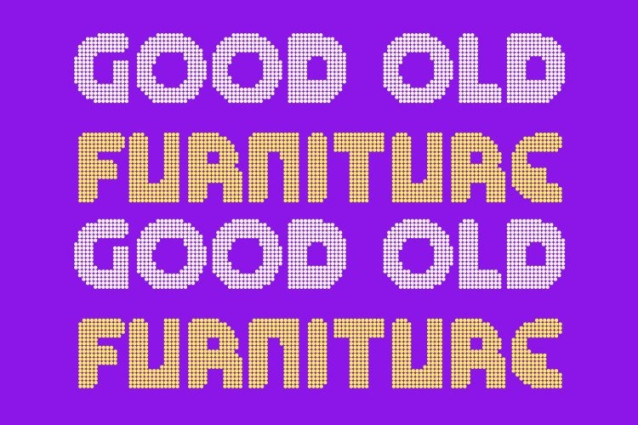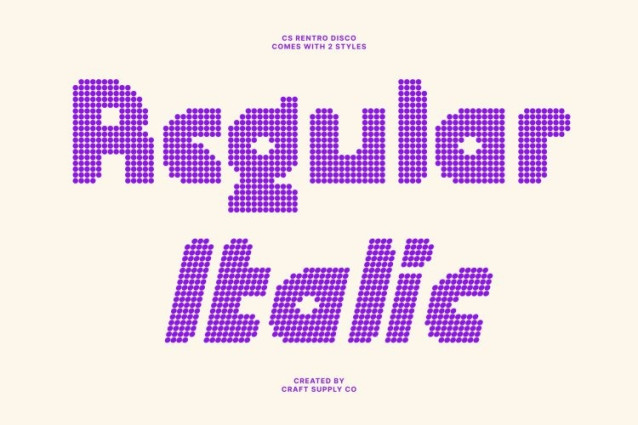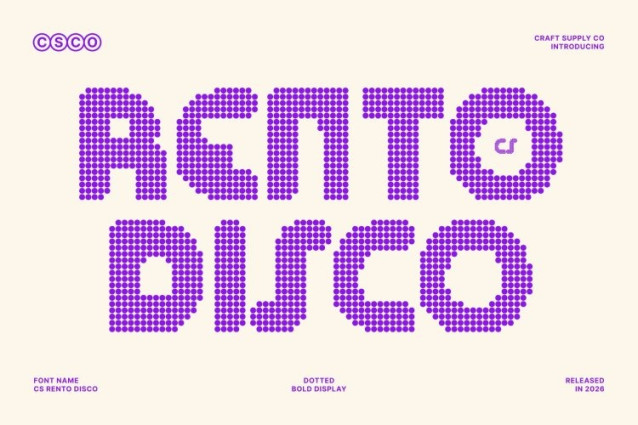
CS Rento Disco Font
CS Rento Disco Font – This is a bold display font that combines strong geometric construction with a lively disco-style dotted texture. Its confident shapes create immediate visual impact, while the dotted surface introduces a subtle sparkle that brings rhythm and vibrancy to the typography.
Strong Geometry with Soft Character
Built from solid geometric forms and softened with smooth curves, the letterforms strike a balance between structure and approachability. The disco-inspired dotted texture enhances these shapes with depth and decorative energy, transforming the clean geometry into something playful and visually engaging.
Futuristic Style with Expressive Charm
This font blends futuristic inspiration with modern design clarity. The structured geometry gives the font a tech-forward personality, while the textured surface and gentle curves add warmth and character. This combination results in a typeface that feels innovative, stylish, and approachable.
Fresh, Cheerful, and Modern Impact
The font carries a cool and optimistic personality that feels lively without losing its professional structure. Its bold proportions and textured sparkle create an energetic yet balanced visual tone, making it ideal for designs that aim to feel modern, vibrant, and inviting.